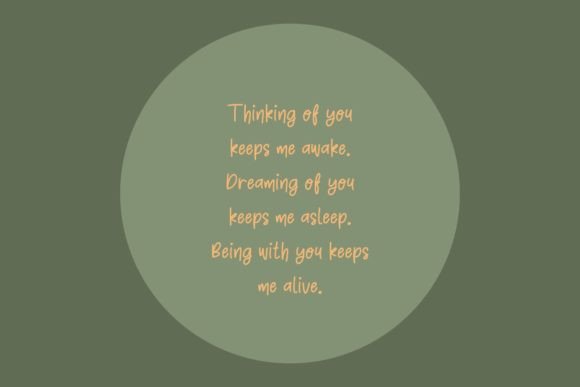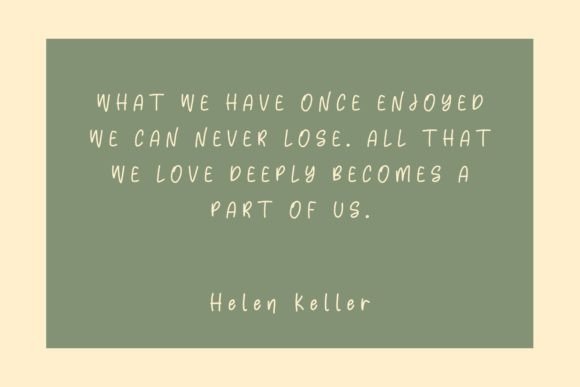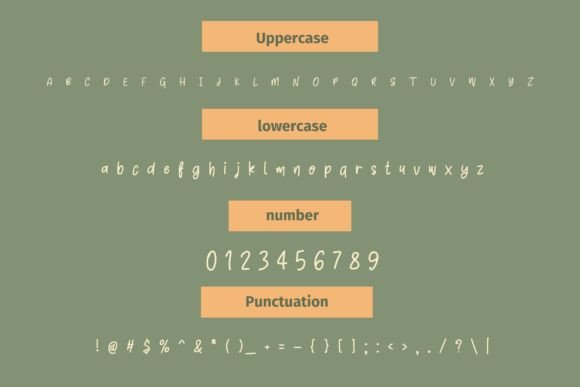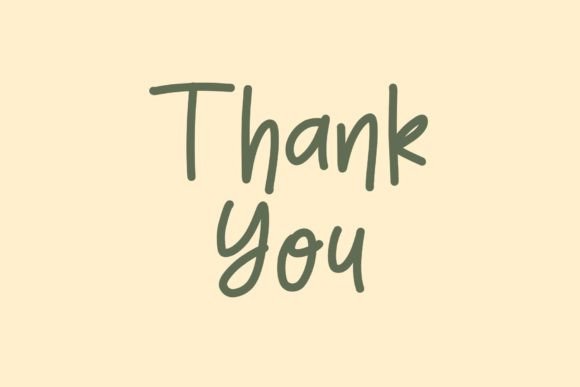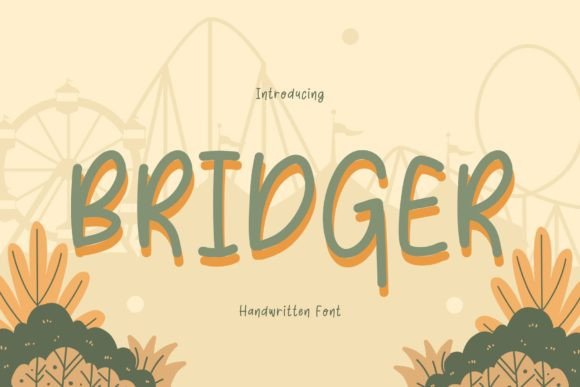
Bridger Font: The Perfect Handwritten Font for Your Creative Projects
Are you looking for a font that embodies playfulness and authenticity? Look no further than the Bridger Font! This cute handwritten font is perfect for a wide range of creative projects, from blog posts and logos to branding, ads, invitations, and more. In this article, we’ll explore the features and benefits of the Bridger Font, and show you how to make the most of this versatile and charming font.
What is Bridger Font?
Bridger Font is a carefully crafted handwritten font that exudes a sense of playfulness and friendliness. Its unique and authentic style makes it perfect for designers and crafters who want to add a personal touch to their projects. Whether you’re creating a blog post, logo, or social media graphic, the Bridger Font is sure to make your design stand out.
Key Features of Bridger Font
- Handwritten style: The Bridger Font features a beautiful, handwritten style that’s perfect for creating personal and engaging designs.
- Playful and authentic: This font embodies a sense of playfulness and authenticity, making it perfect for designers who want to add a touch of personality to their projects.
- Versatile: The Bridger Font is suitable for a wide range of creative projects, from blog posts and logos to branding, ads, invitations, and more.
- Easy to read: Despite its playful style, the Bridger Font is easy to read and understand, making it perfect for body text and headlines.
Uses for Bridger Font
The Bridger Font is perfect for a wide range of creative projects, including:
- Blog posts: Add a personal touch to your blog posts with the Bridger Font. Its playful style is perfect for creating engaging headlines and body text.
- Logos and branding: Use the Bridger Font to create a unique and memorable logo for your business or brand.
- Ads and marketing materials: The Bridger Font is perfect for creating eye-catching ads and marketing materials that grab attention and drive results.
- Invitations and greeting cards: Add a personal touch to your invitations and greeting cards with the Bridger Font.
- Planners and photo albums: Use the Bridger Font to create beautiful and functional planners and photo albums.
- Decorations and crafts: The Bridger Font is perfect for creating decorative items, such as signs, banners, and wall art.
Tips for Using Bridger Font
Here are some tips for getting the most out of the Bridger Font:
- Use it sparingly: While the Bridger Font is perfect for creating engaging designs, it’s best to use it sparingly to avoid overwhelming your audience.
- Pair it with other fonts: Experiment with pairing the Bridger Font with other fonts to create a unique and visually appealing design.
- Adjust the size and color: Play around with different sizes and colors to find the perfect combination for your design.
In conclusion, the Bridger Font is a versatile and charming handwritten font that’s perfect for a wide range of creative projects. Its playful and authentic style makes it perfect for designers and crafters who want to add a personal touch to their designs. With its ease of use and flexibility, the Bridger Font is sure to become a favorite in your design toolkit. So why wait? Download the Bridger Font today and start creating engaging and memorable designs!